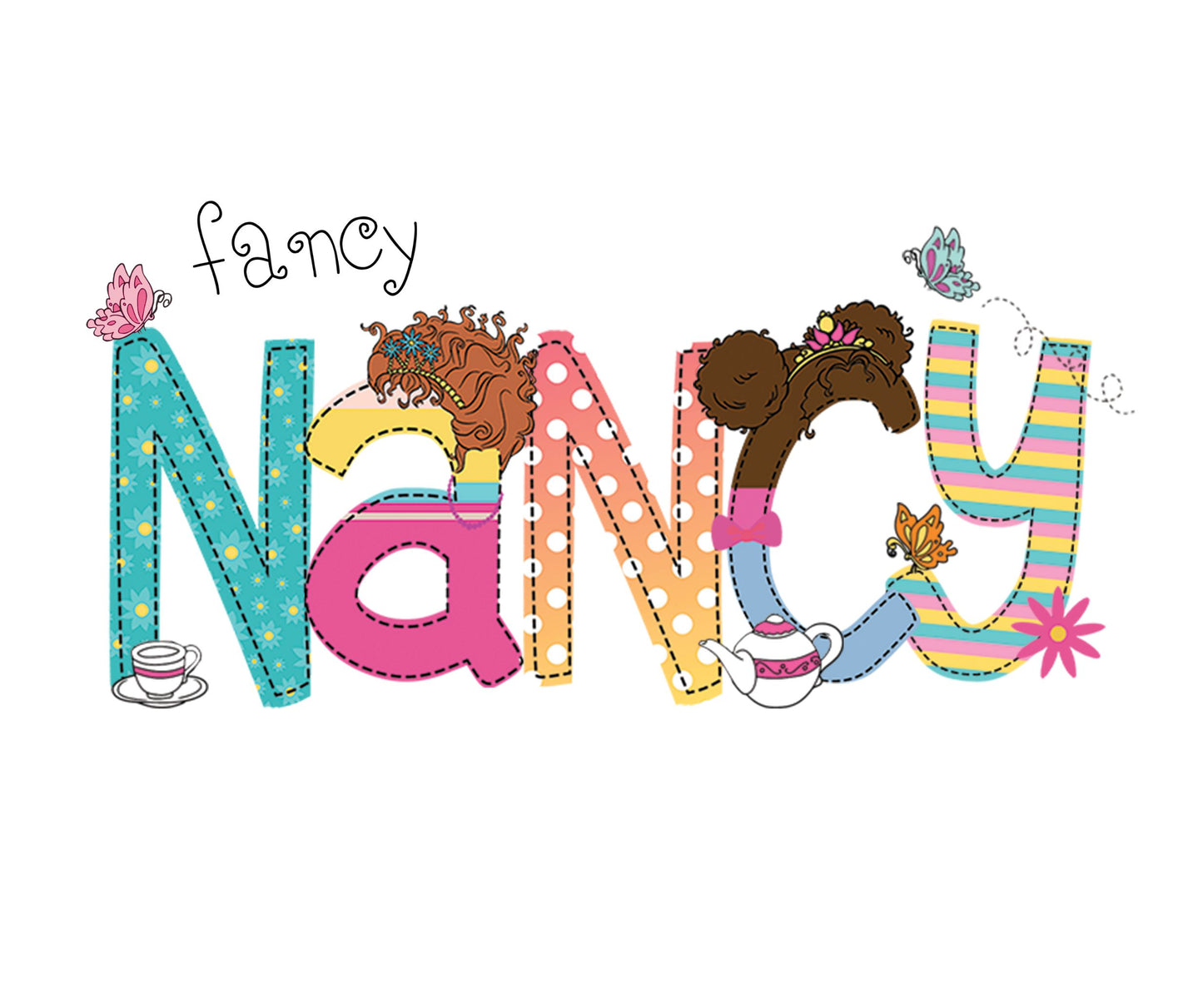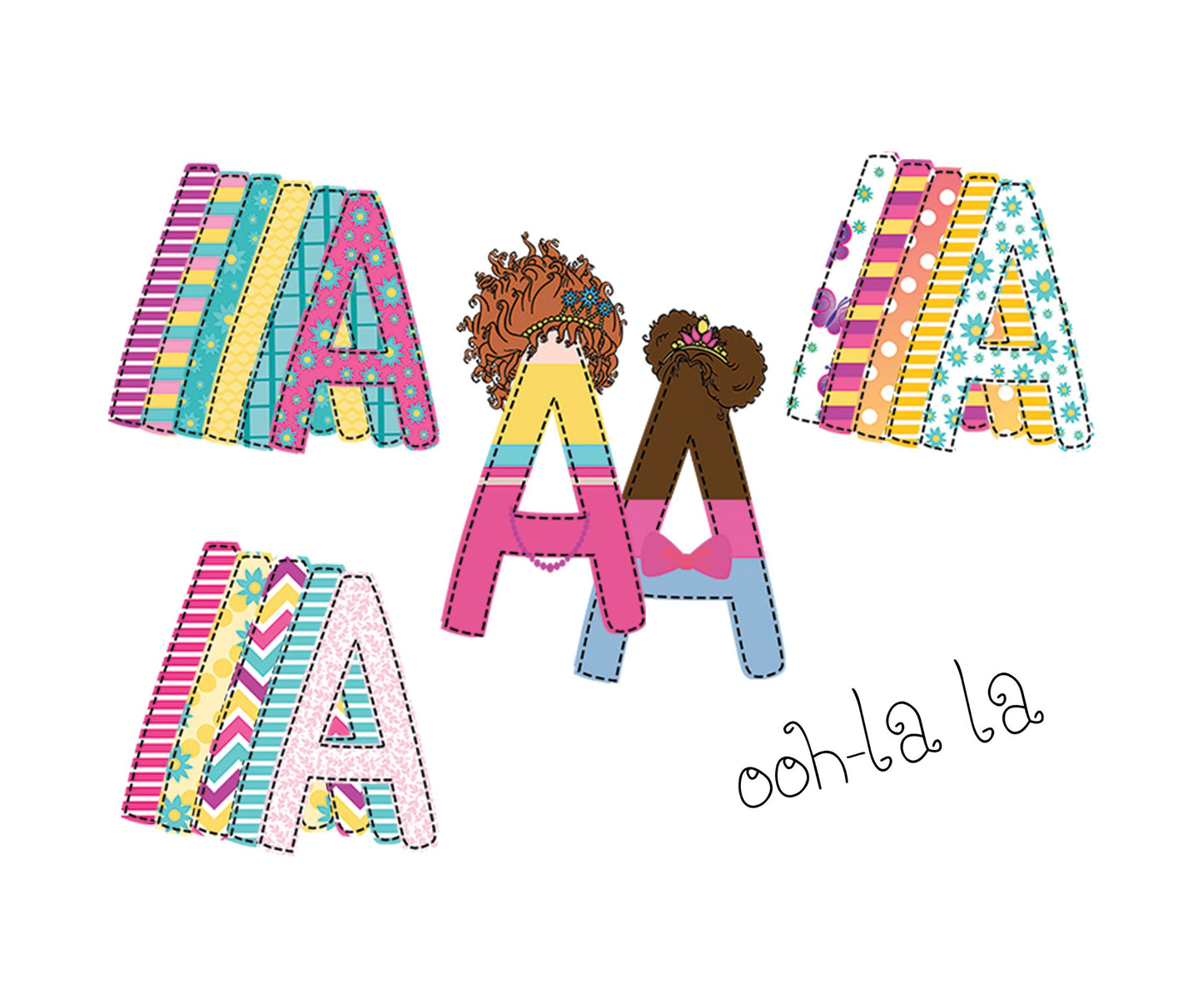
Fancy Nancy Alpha Font
Adorable is just a fancy word for this alpha pack! Add Nancy, Bree and Frenchy to your next project! This digital PNG Fancy Nancy Font is perfect for tees, party decor and more! The complete set includes 18 FULL FONTS and 13 matching elements to make your design perfectly fancy.